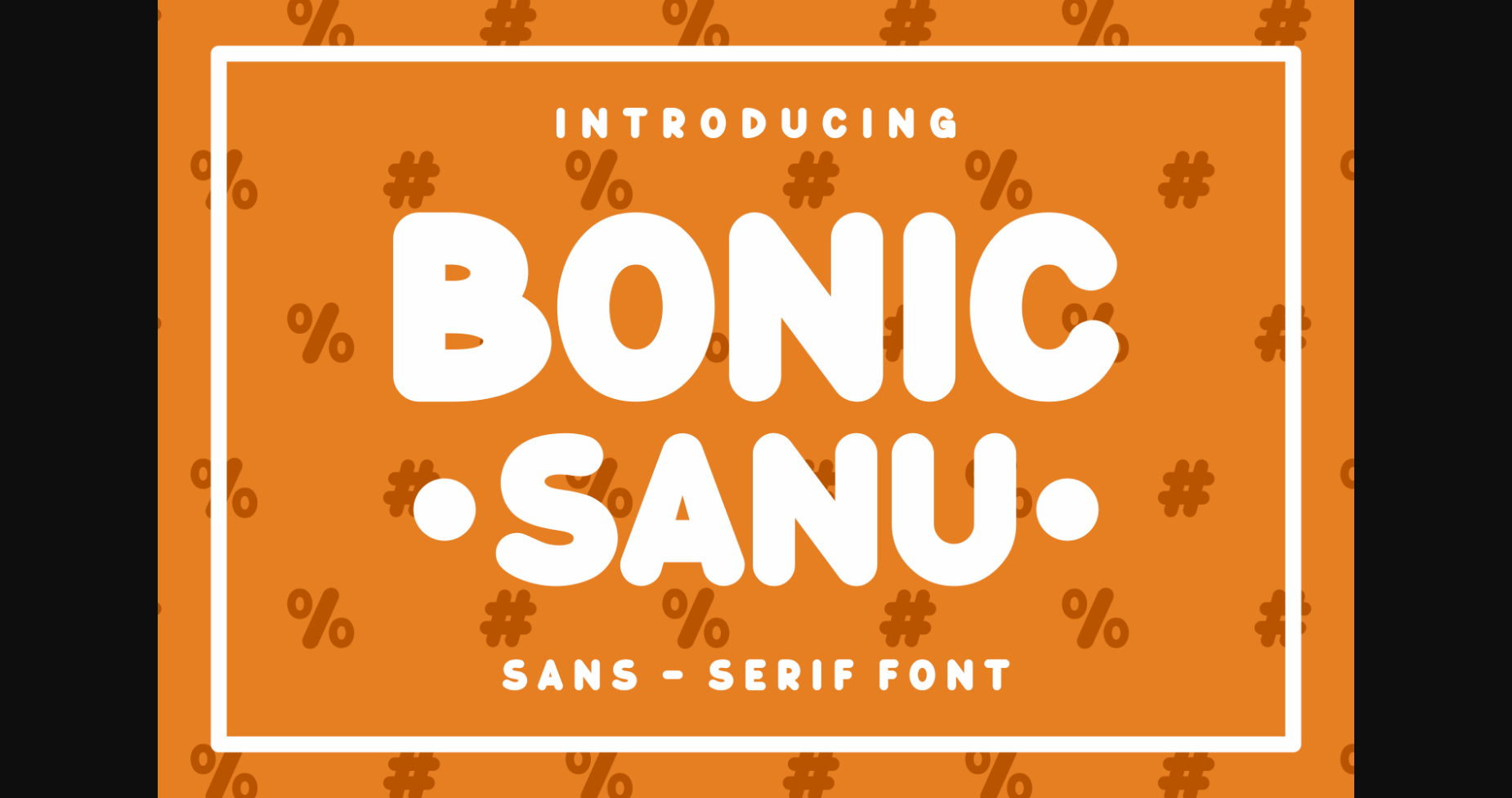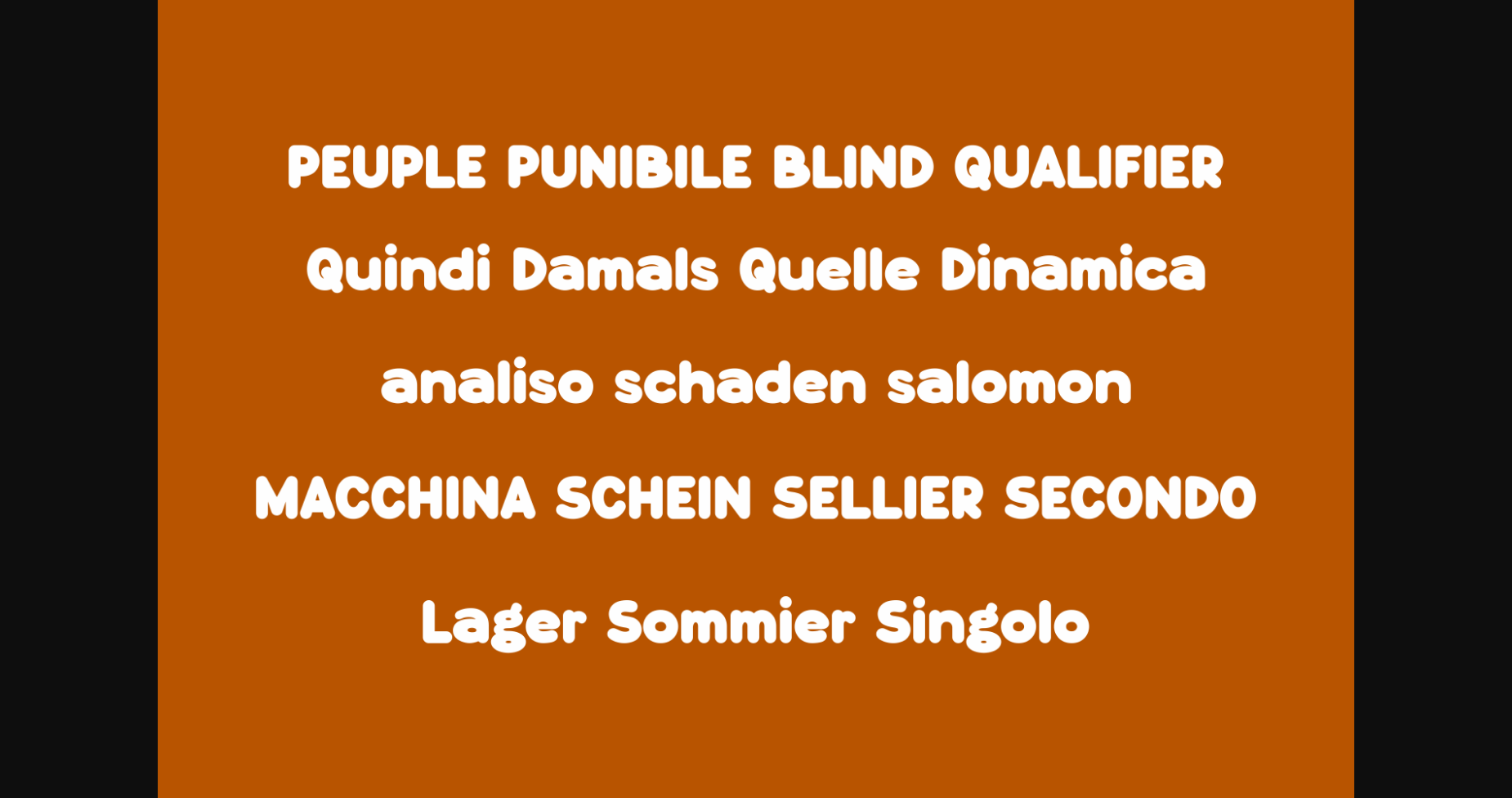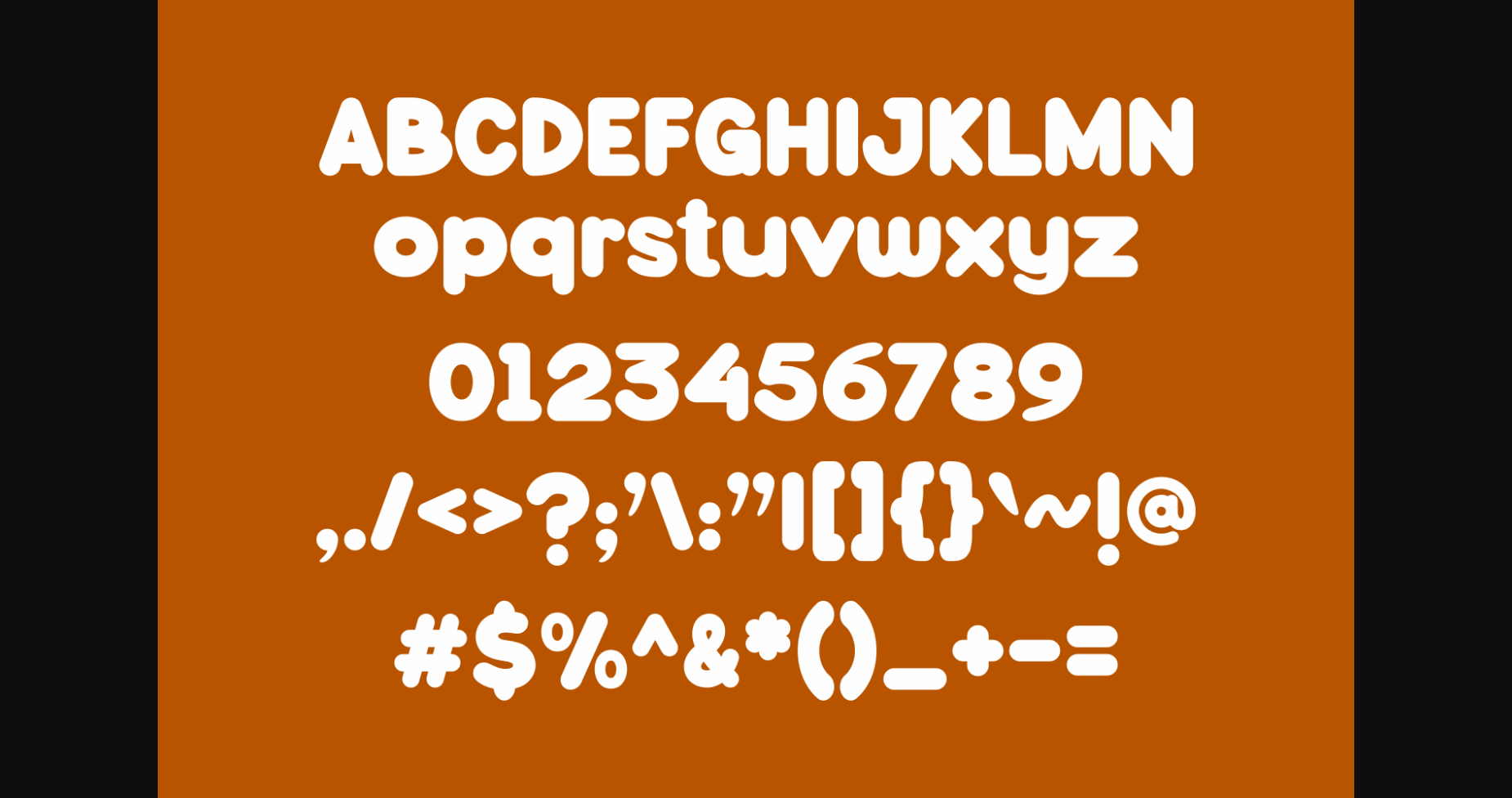
Bonic Sanu is a friendly and cute sans serif font. No matter the topic, this font will be an incredible asset to your fonts’ library, as it has the potential to elevate any creation.